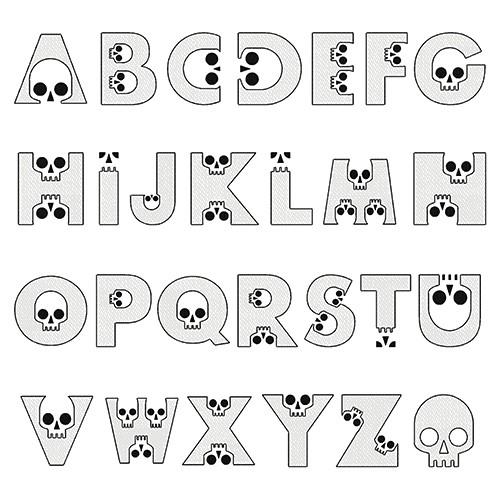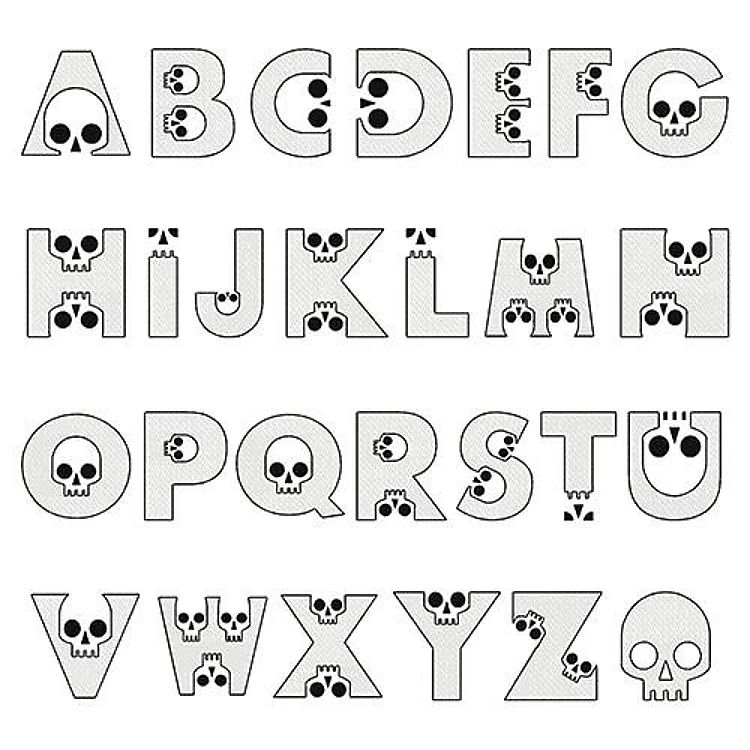
Foxy Ladybug Designs is happy to present Skullphabet machine embroidery font which has Bold decorative outline machine embroidery font with playful skull motifs, ideal for Halloween decorations and themed projects. Available in Home Format, including PES, DST, and more. included. If you would like to view more embroidery fonts and alphabets please search our embroidery fonts page.